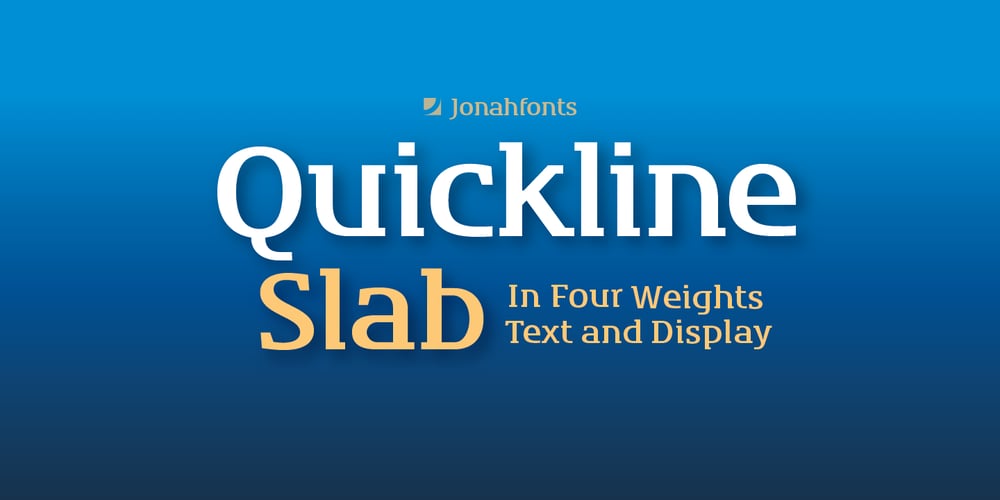
Quickline Slab Font Family was designed by John Nahmias and published by Jonahfonts. Quickline Slab contains 4 styles and family package options. Quickline-SLAB OpenType font family in four weights supporting Central-European languages, containing ligatures, fractions and an abundance of alternates for upper and lower case glyphs. Quickline-SLAB also comes in a matching Quickline ”SANS” version containing four weights as well. Quickline-Slab works well as a text and display font.